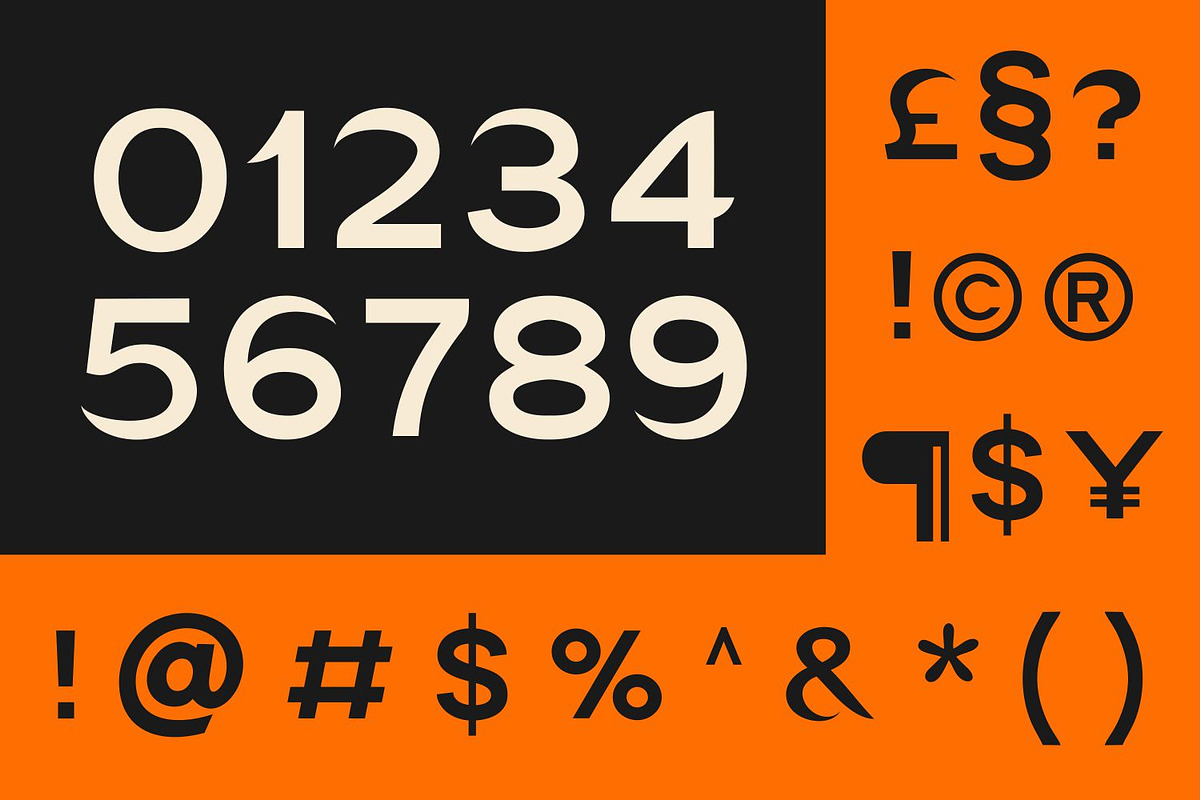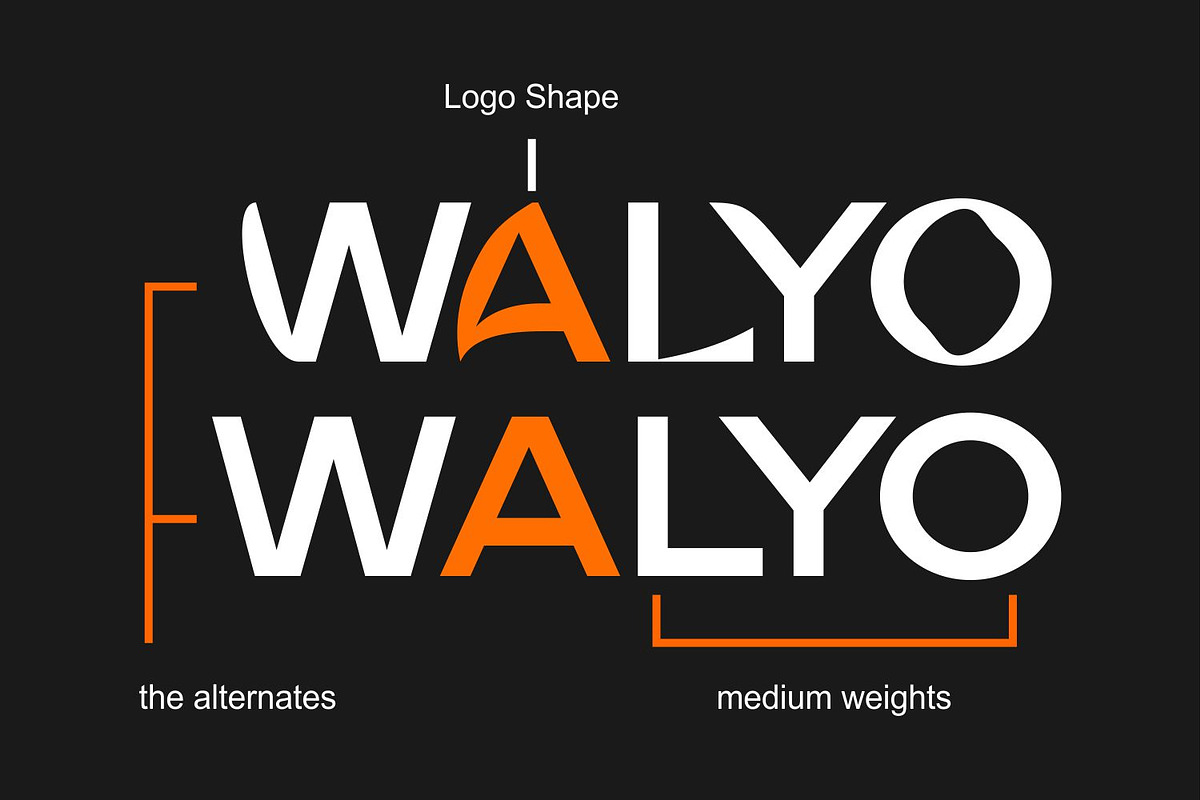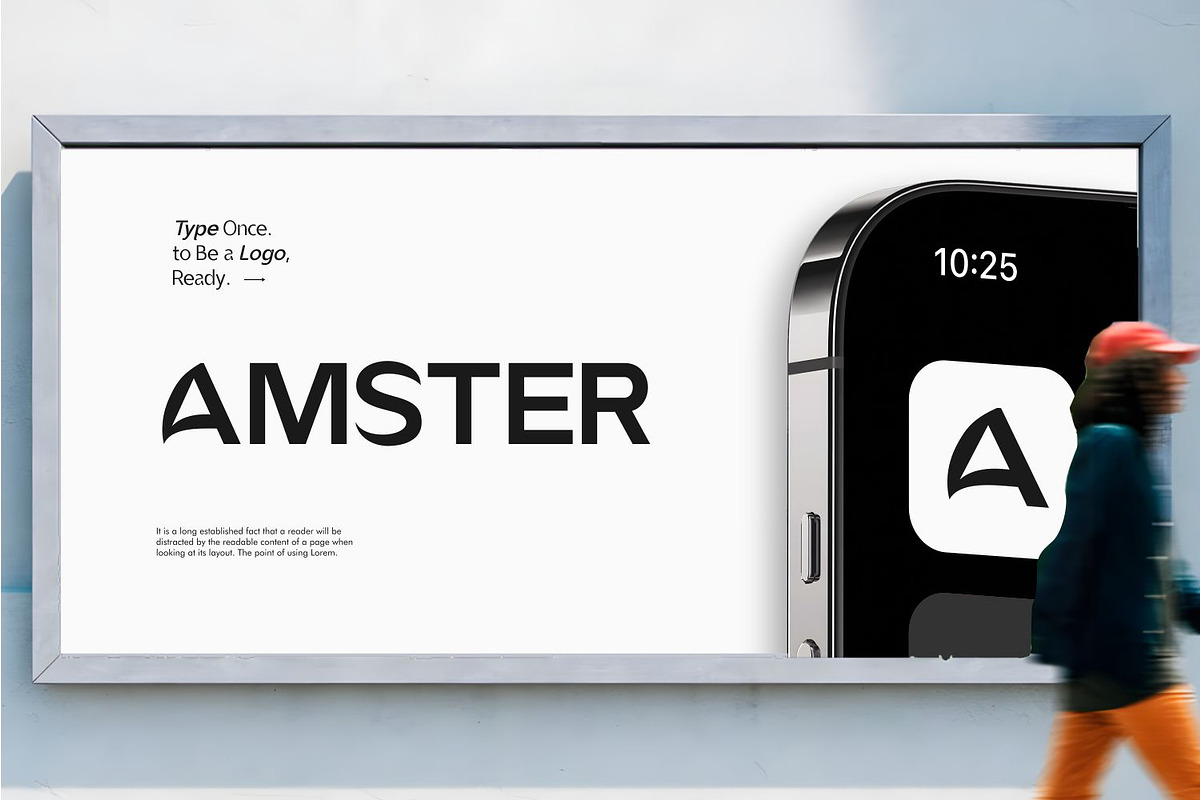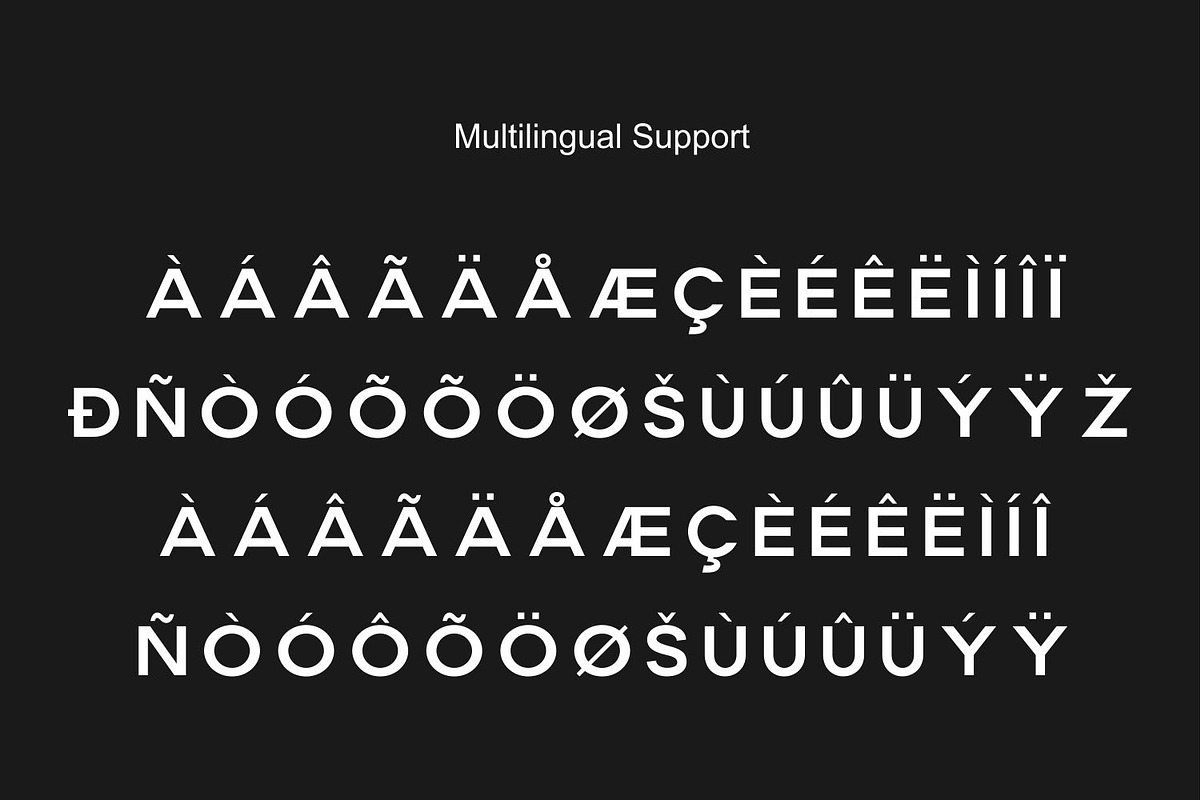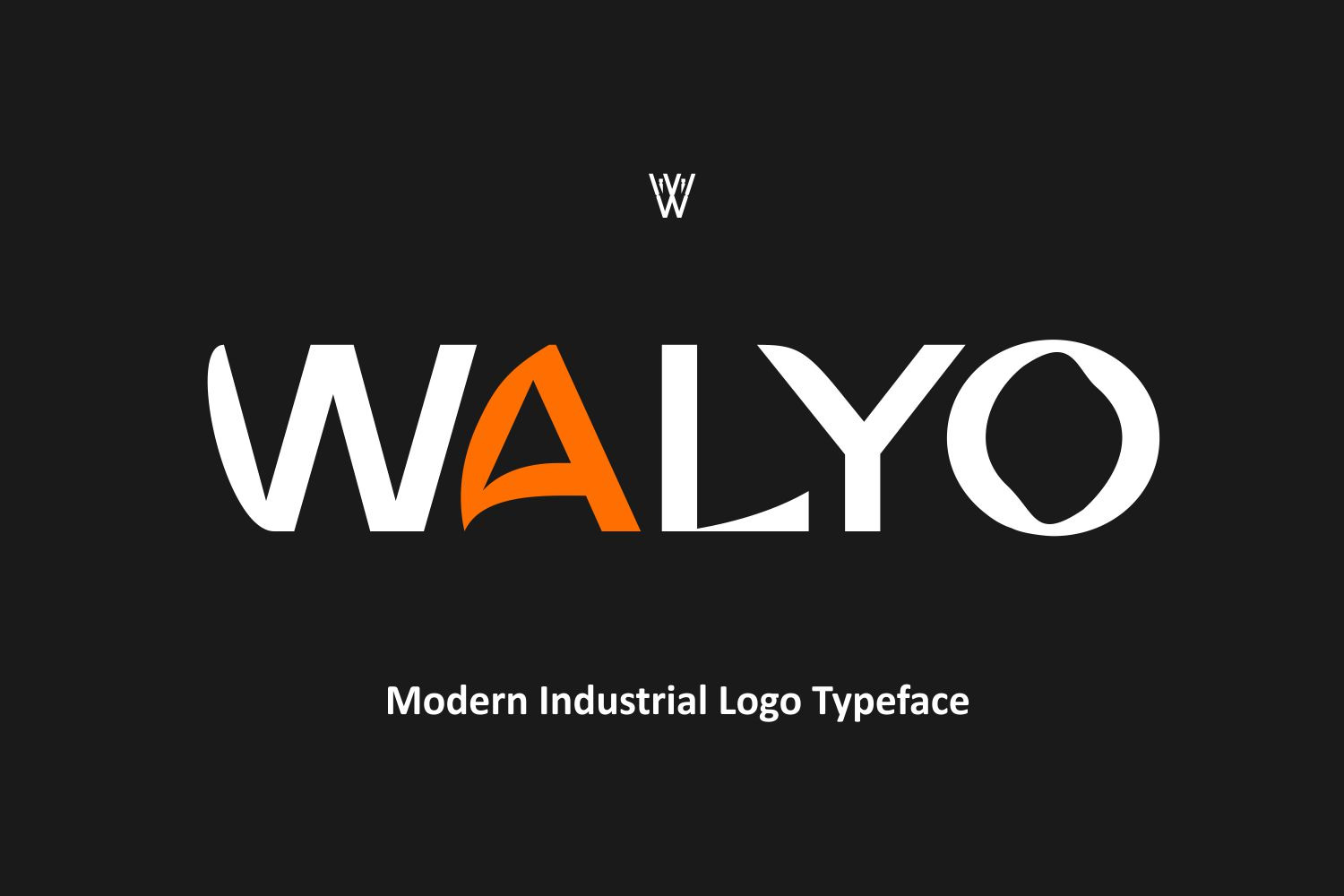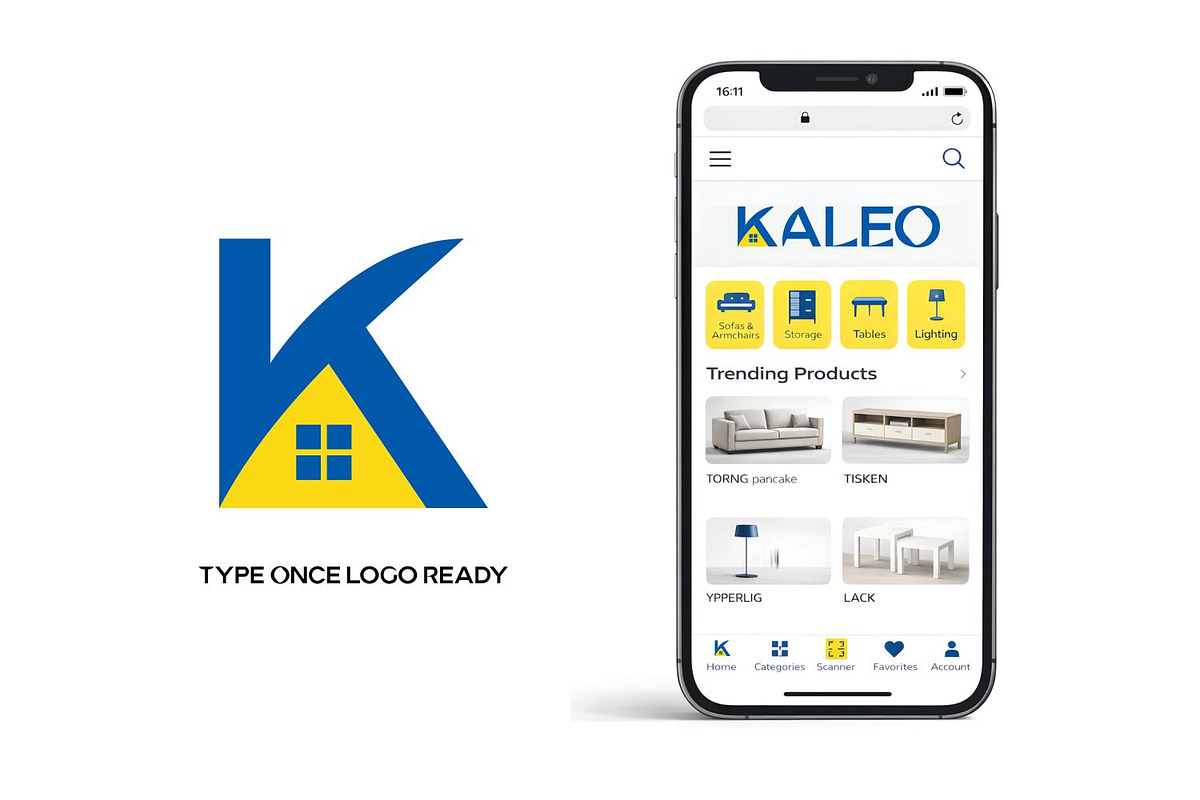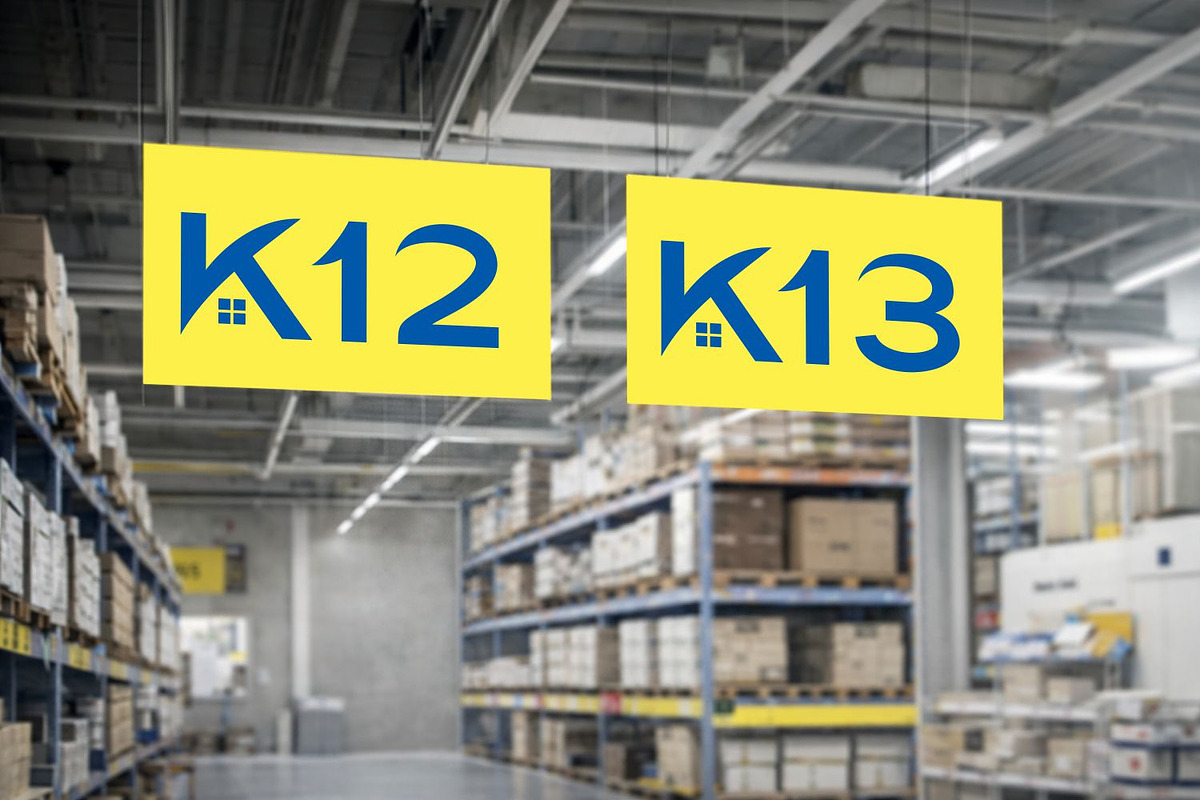
Walyo – editoral Logo font
Walyo is a modern industrial logo font crafted to deliver strong visual identity with clarity and confidence.
Designed with bold shapes and distinctive details, Walyo works perfectly for logos, brand marks, signage, posters, and industrial-inspired designs. Its clean yet powerful character makes it suitable for tech brands, startups, manufacturing, automotive, and modern corporate visuals.
Walyo helps designers create logos that feel solid, modern, and instantly recognizable.
Features ✨Modern industrial logo font ✨Strong and bold letterforms ✨Clean, distinctive shapes ✨Uppercase characters ✨Numbers, punctuation, and symbols included
Ideal For ✨Logo & wordmark design ✨Industrial & tech branding ✨Corporate identity ✨Signage & packaging ✨Posters & advertising ✨Modern brand visuals
Walyo is built for brands that want to look bold, modern, and industrial.